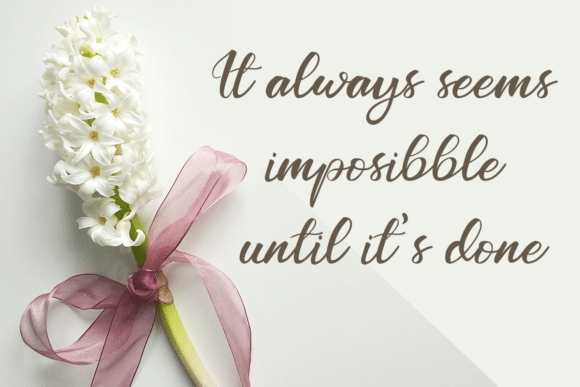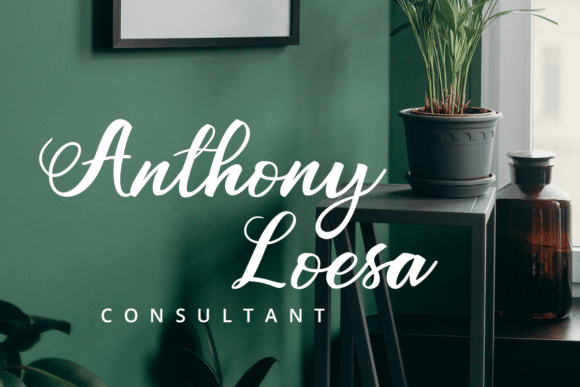
Mickylet Font
Mickylet is a modern and playful handwritten script font. It’s great for crafters and designers. Compatible with tools such as Photoshop and Silhouette design studio. its playfulness can make it great for creative projects.